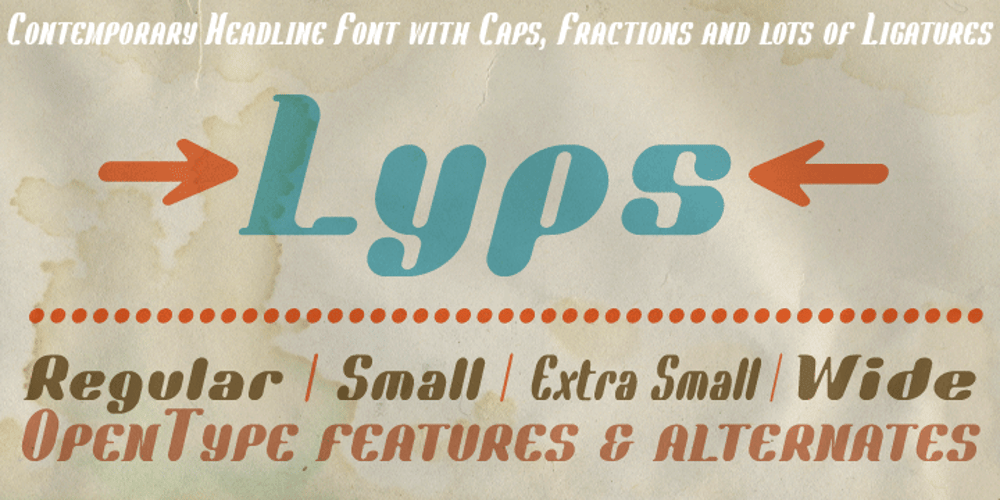
Lyps Font Family was designed by Heiko Hoos and published by hgo. Lyps contains 4 styles and family package options. Lyps is a contemporary headline family designed by Heiko Hoos. There are 4 font styles: Lyps Regular, Lyps Small, Lyps Extra Small and Lyps Wide. Each font file has OpenType features for ligatures, caps and some alternative Type variations. The Lyps family is suitable for high impact situations like posters, headlines, titles, magazines, packaging and many others.